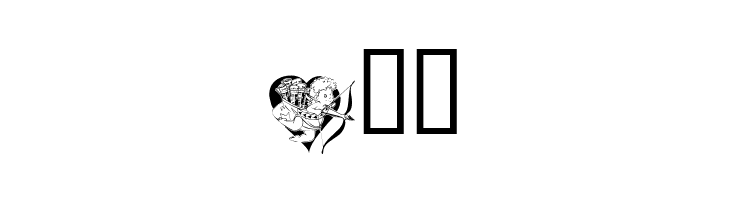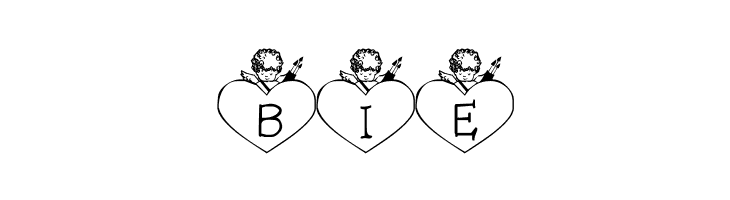
Cupid de Locke Font
A romantic serif font with heart motifs, blending classic and decorative styles.
Clipz Cupid Font
A whimsical font with heart and arrow motifs, perfect for romantic and playful designs.
LCR Cupid's Heart Font
A decorative font with characters inside heart shapes topped by cupids.
Cupid's gonna get ya ! Font
A whimsical, heart-accented font with arrow motifs, perfect for romantic or playful designs.
Cupid Deer Font
KR Cupids Font
A decorative collection of cupid-themed illustrations with playful and romantic motifs.
LM Cupids Font
A decorative collection of cupid-themed illustrations.
Cupid Gummies Font
A playful, rounded font with a hand-drawn, friendly appearance.
Cupidon Font
A whimsical, arrow-adorned decorative font with outlined characters.
KR Cupids 2003 Font
A decorative font featuring whimsical cupid and heart illustrations.
LCR Cutesy Cupid Font
The image contains decorative illustrations, not a valid font.
Cupid Love Font
A bold, playful handwritten font with rounded, thick strokes.
Cutey Cupids Font
A collection of decorative heart and cherub designs for embellishment.
Cupidity Font
A whimsical font with cherub illustrations accompanying each character.
Cupid Darling Font
A playful, bold, and hand-drawn font with a whimsical style.
Pinky Cupid Font
A bold, playful script font with flowing, dynamic strokes and a handwritten feel.